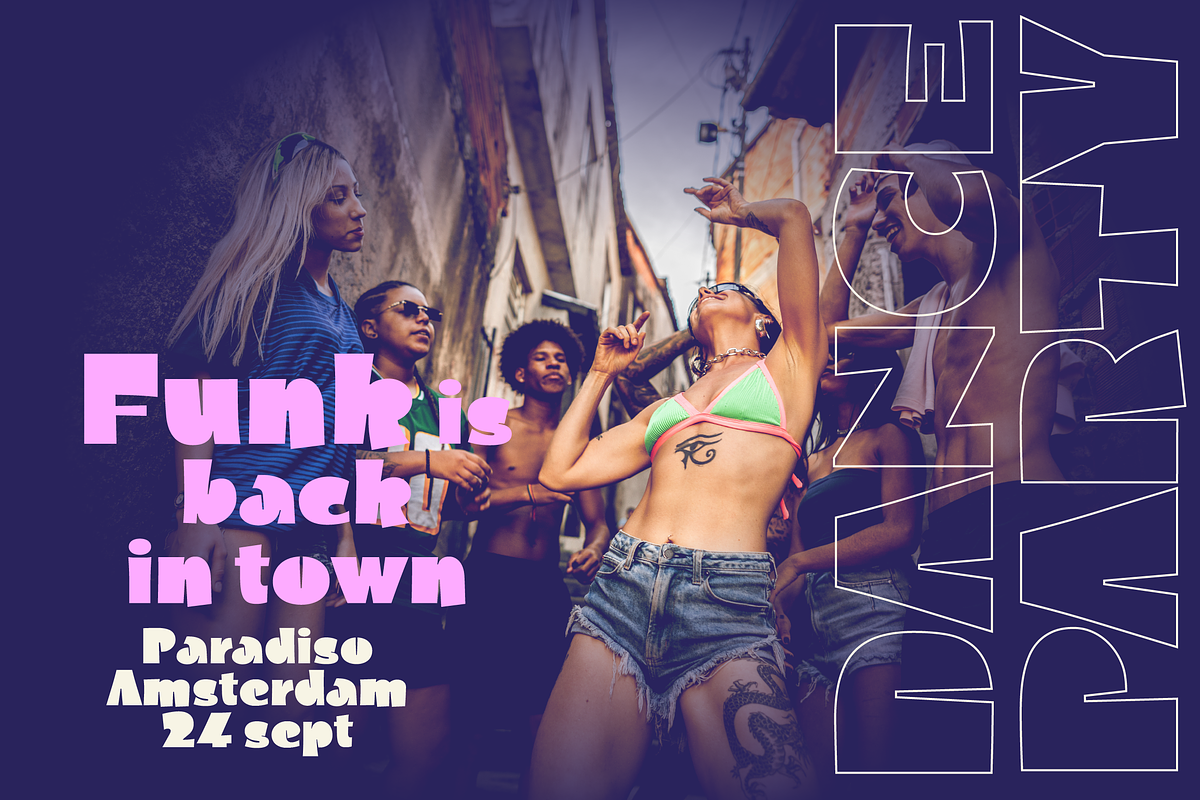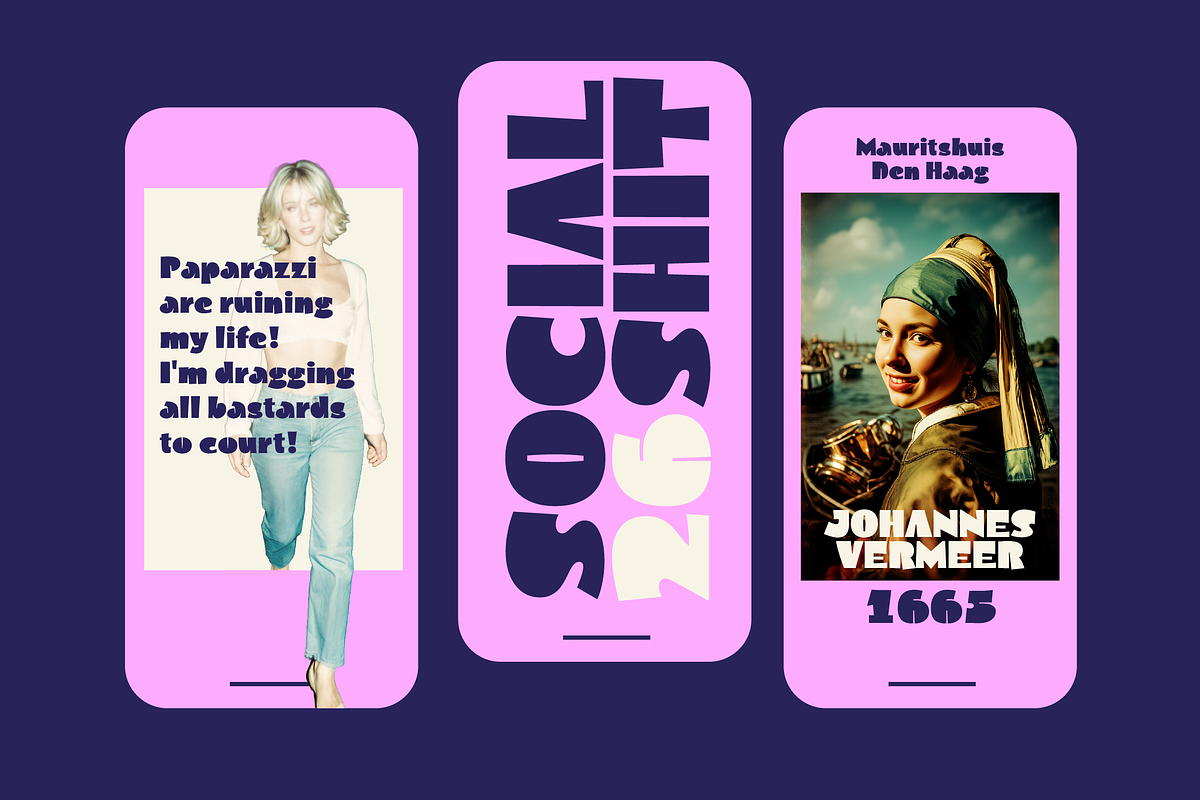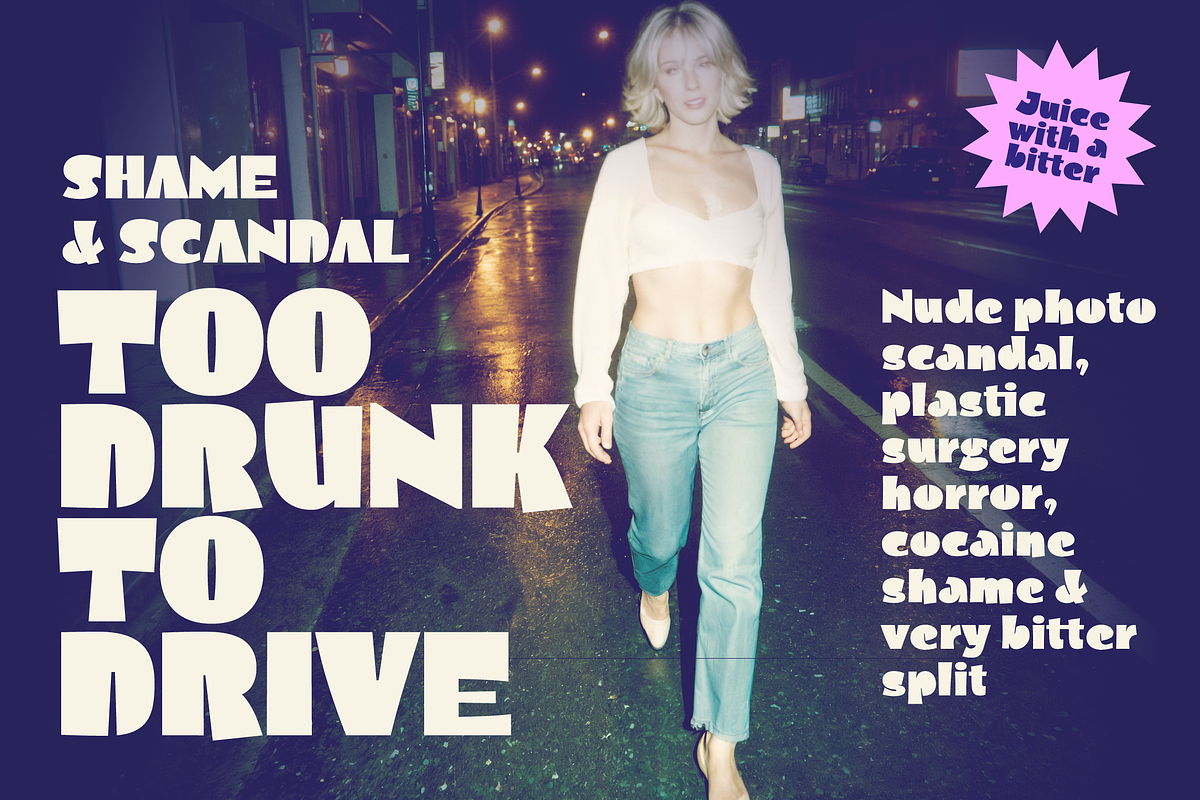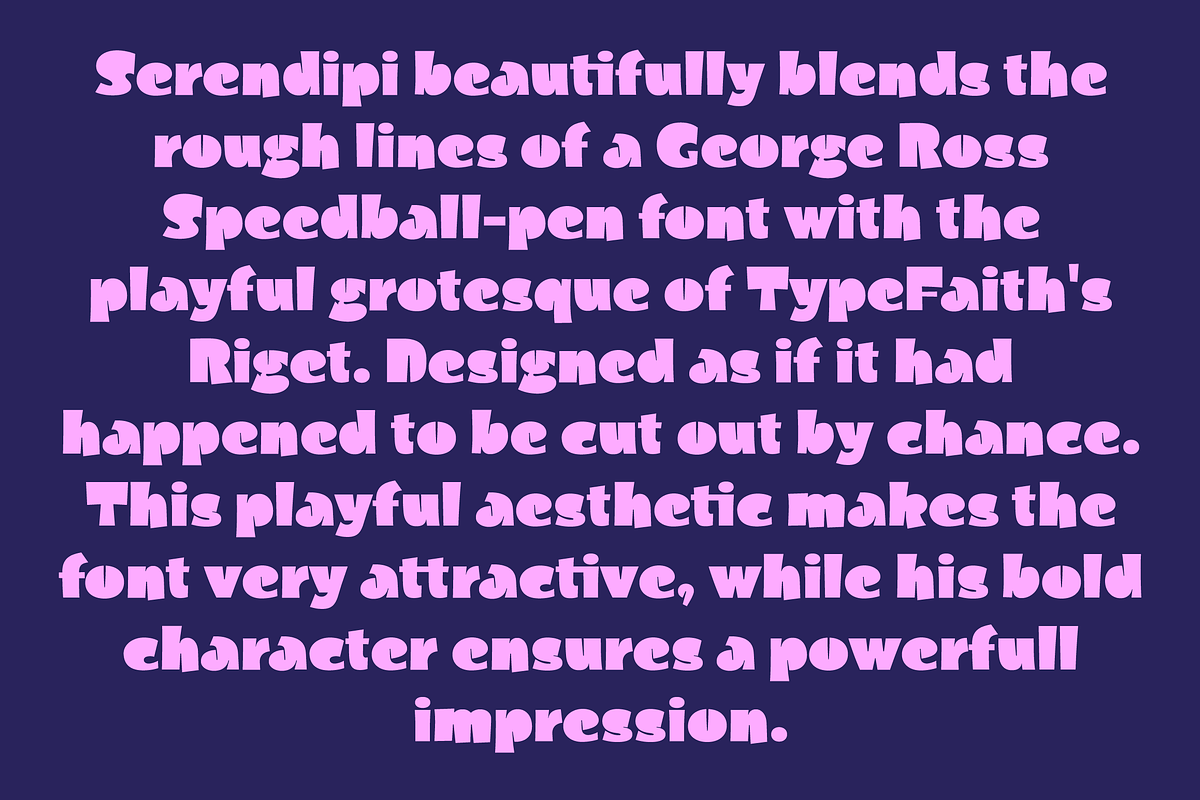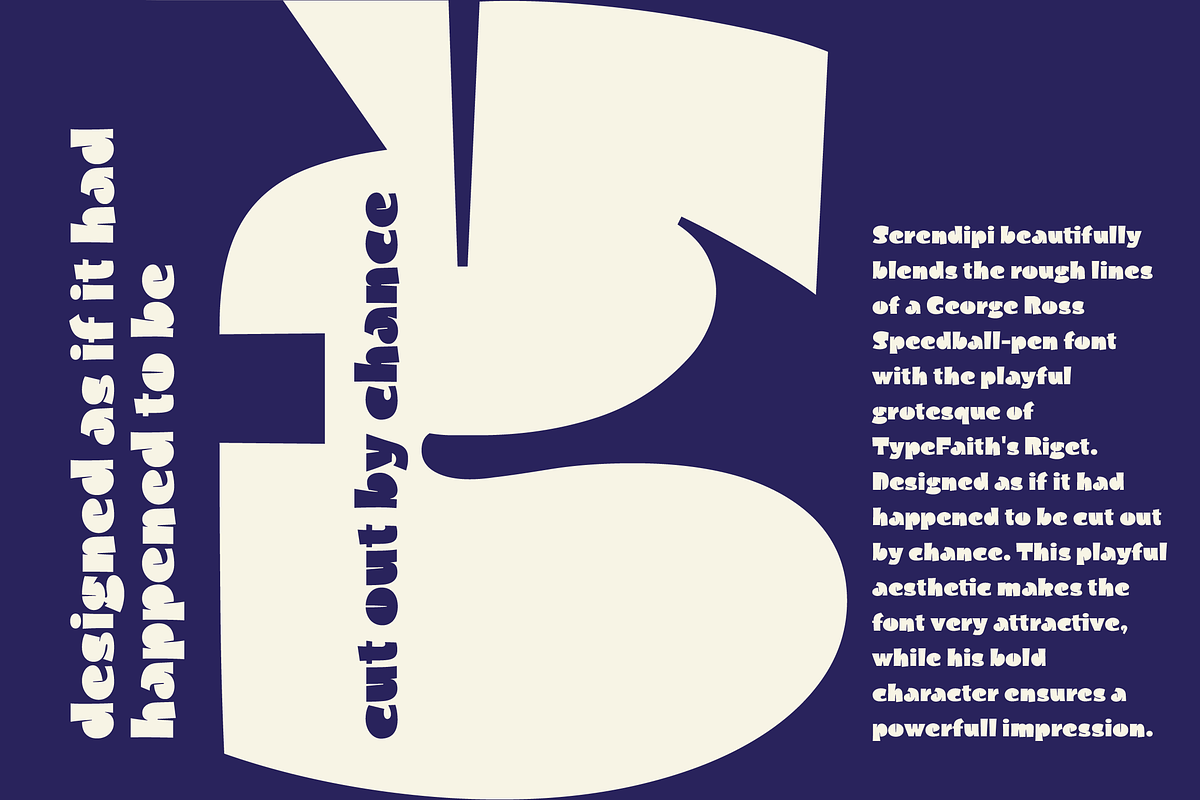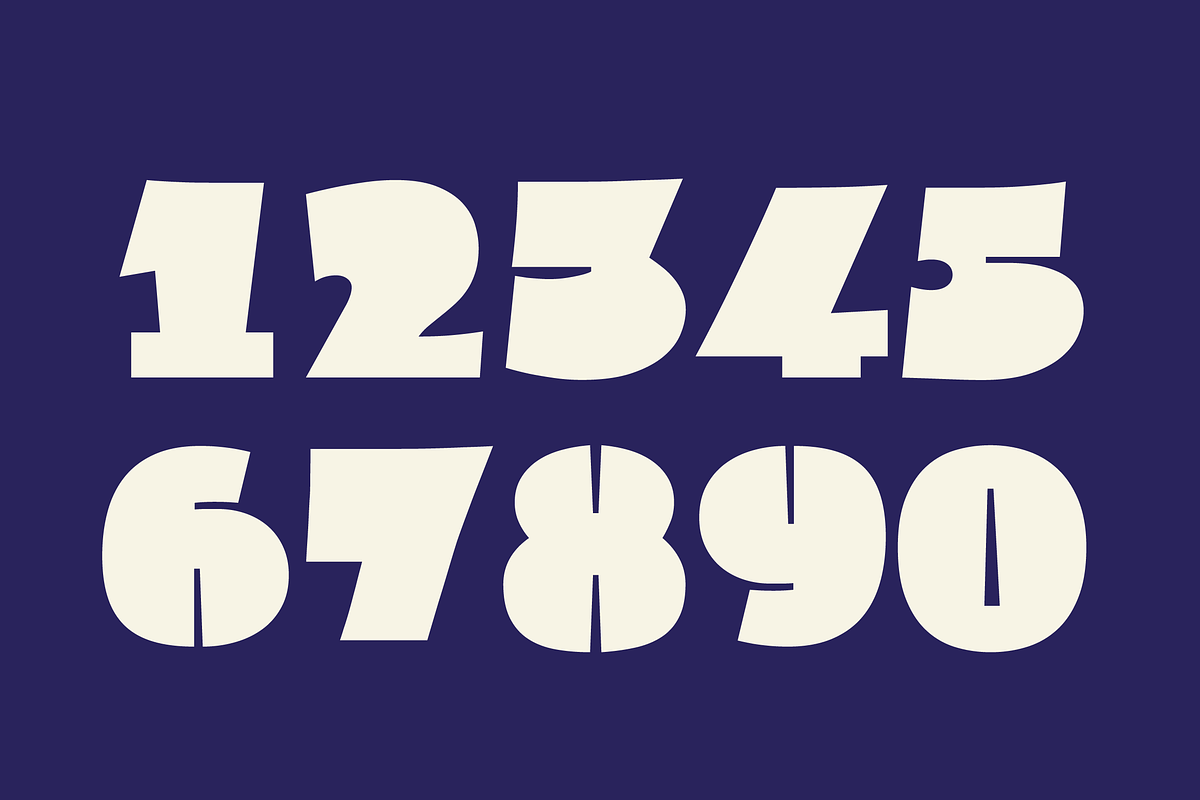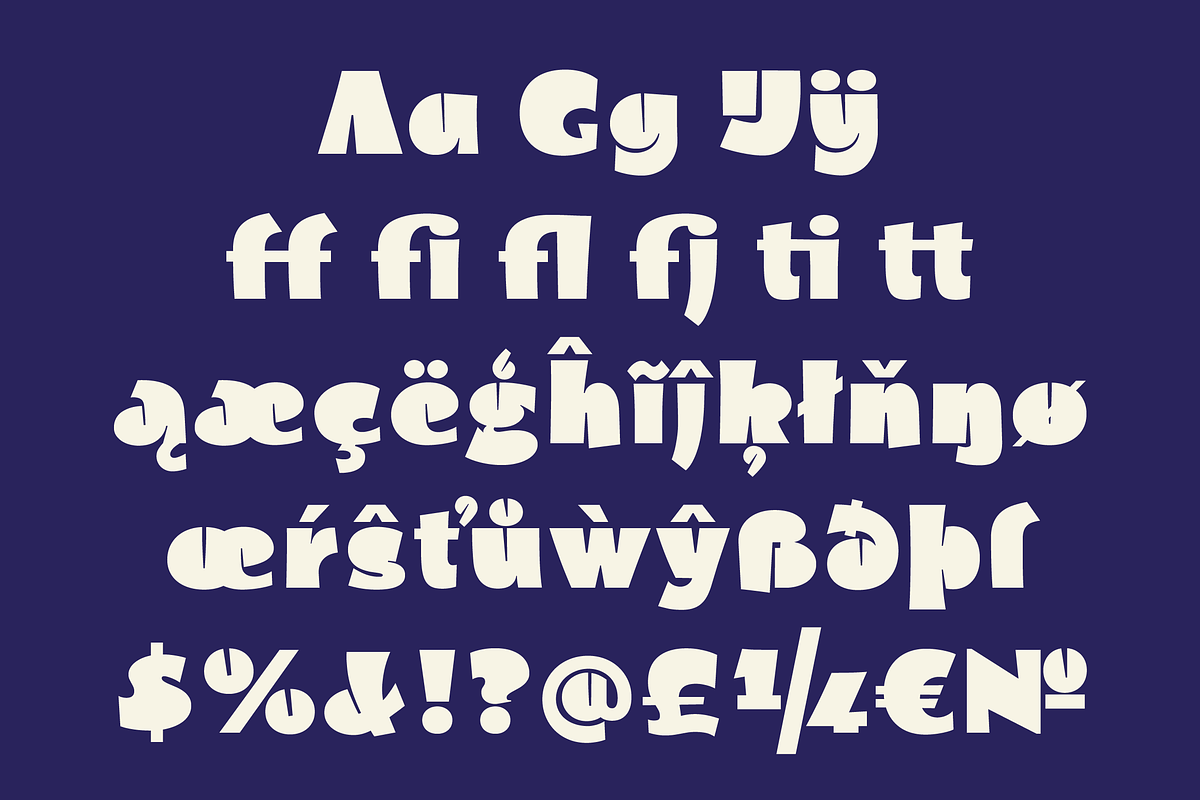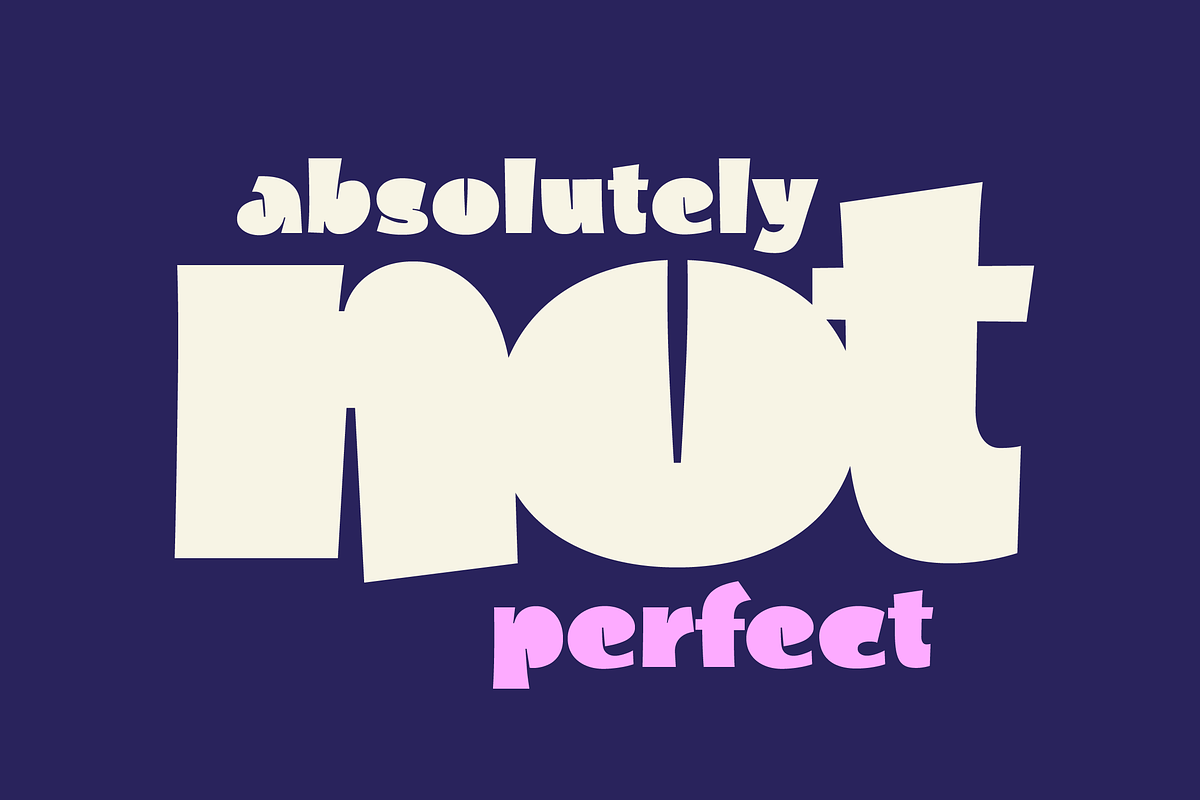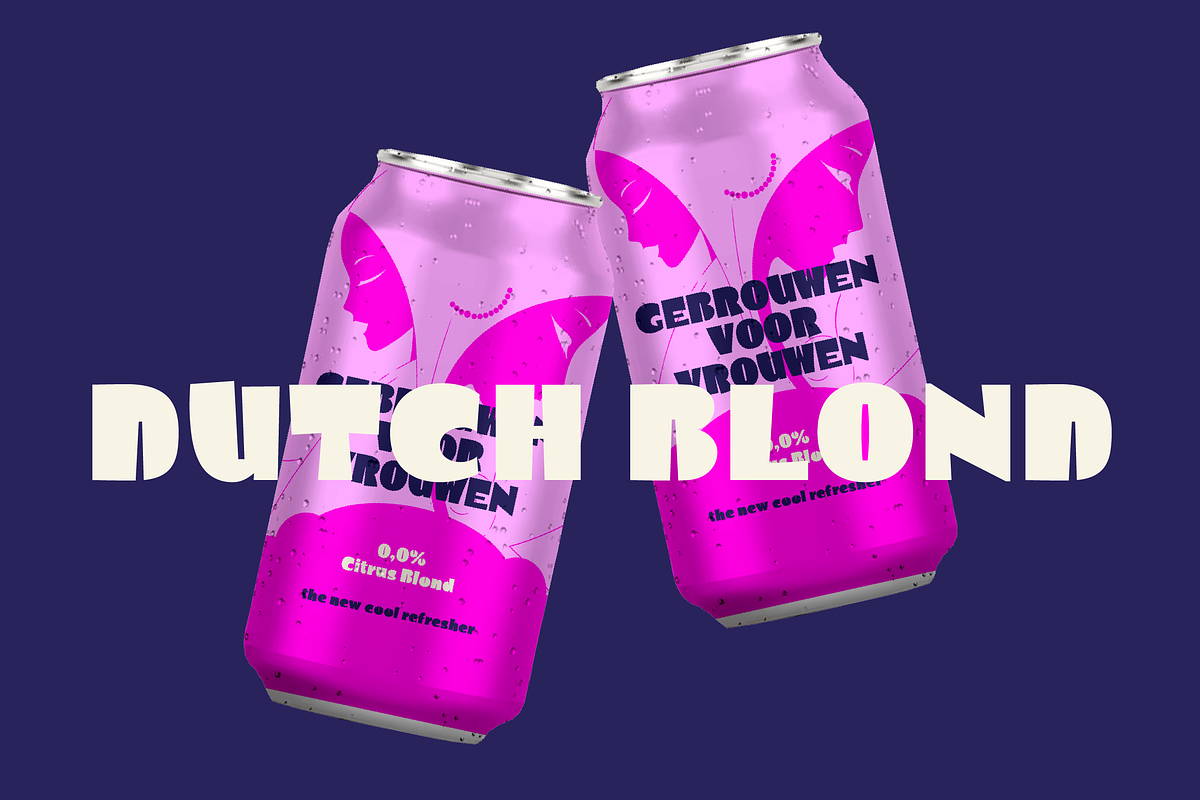
Serendipi - Heavy Headliner
Serendipi beautifully blends the rough lines of a George Ross Speedball-pen font with the playful grotesque of TypeFaith's Riget. Designed as if it had happened to be cut out by chance. This playful aesthetic makes the font very attractive, while its bold character ensures a powerful impression.
Designs come alive with this font. Bold and inviting, the letters stand out and become a visual feast in colourful designs. Tightly spaced with a small line height, it adds a lot of vibrancy to your designs. Perfect for logos, packaging, posters, covers and invites.
This font includes uppercase, lowercase, numerals, and punctuation - perfect for typography in all Latin written languages.